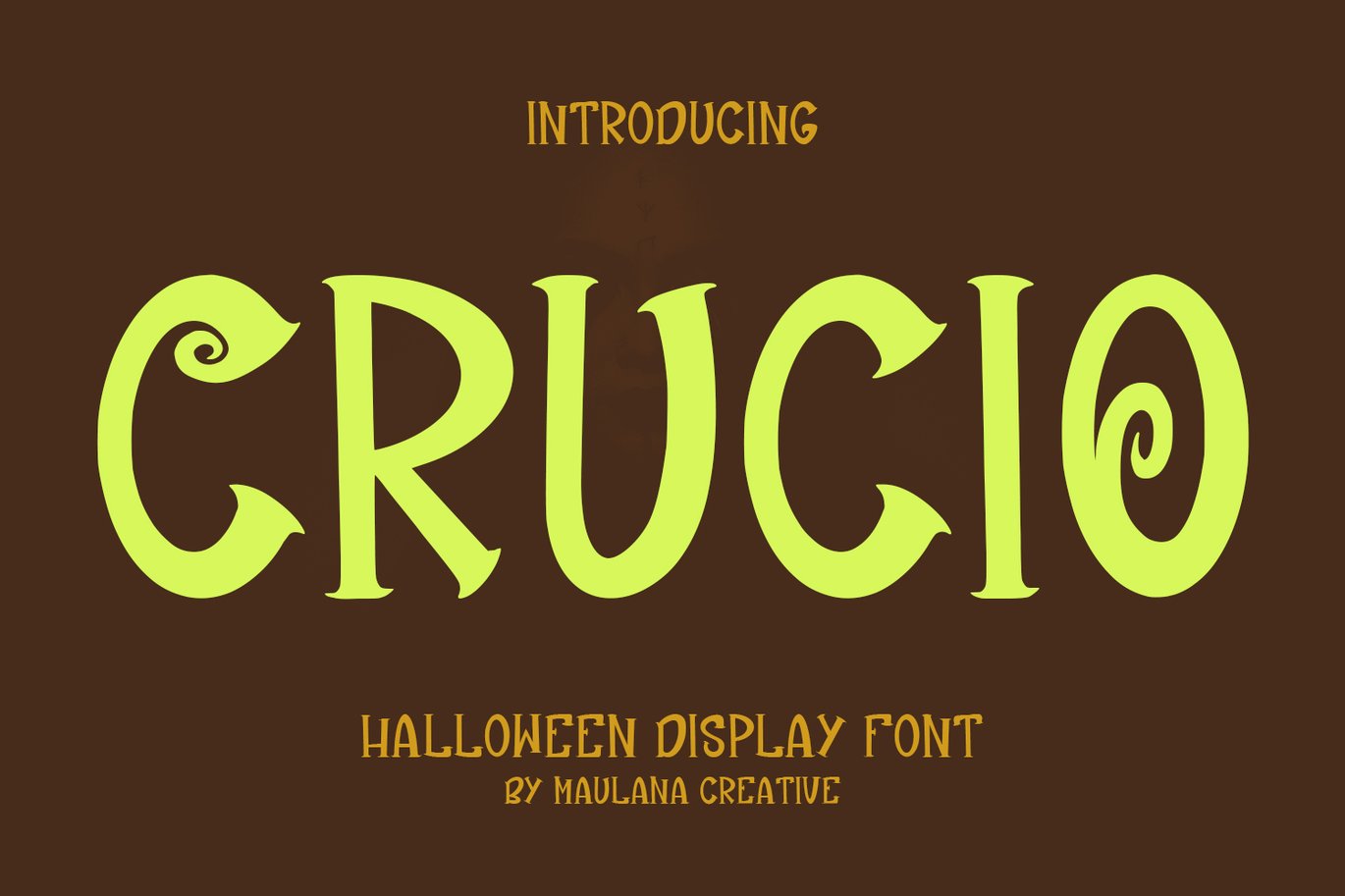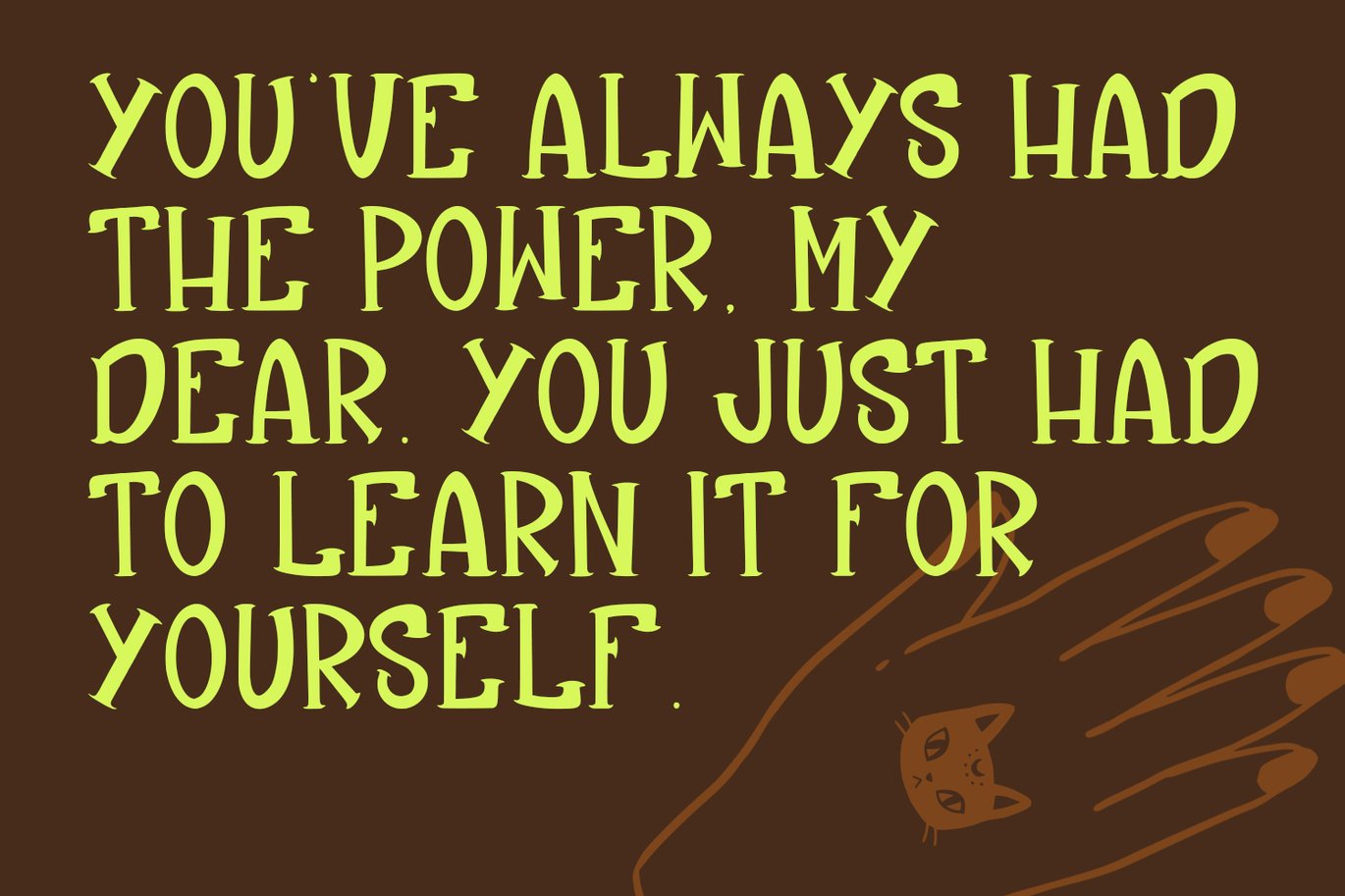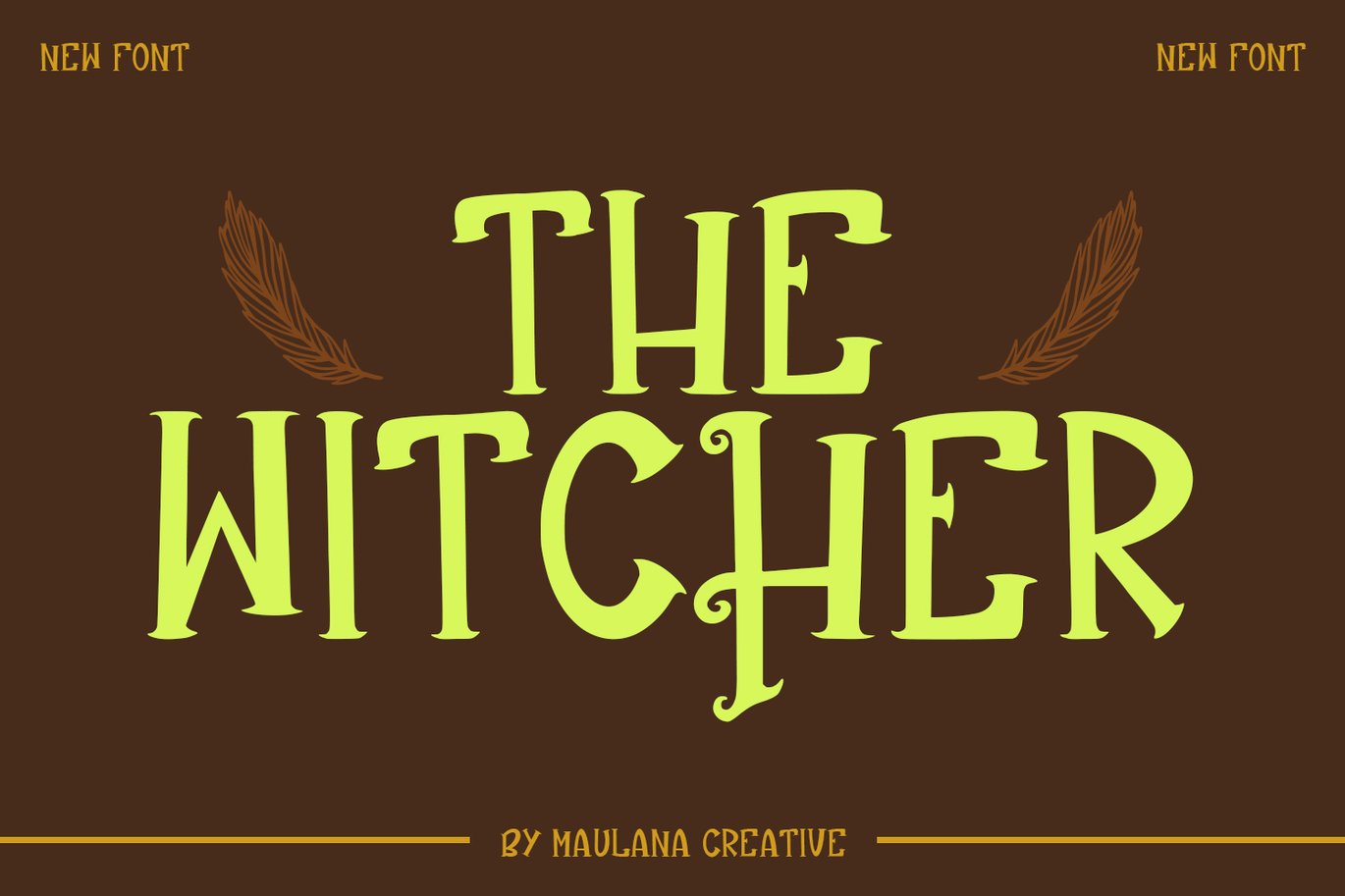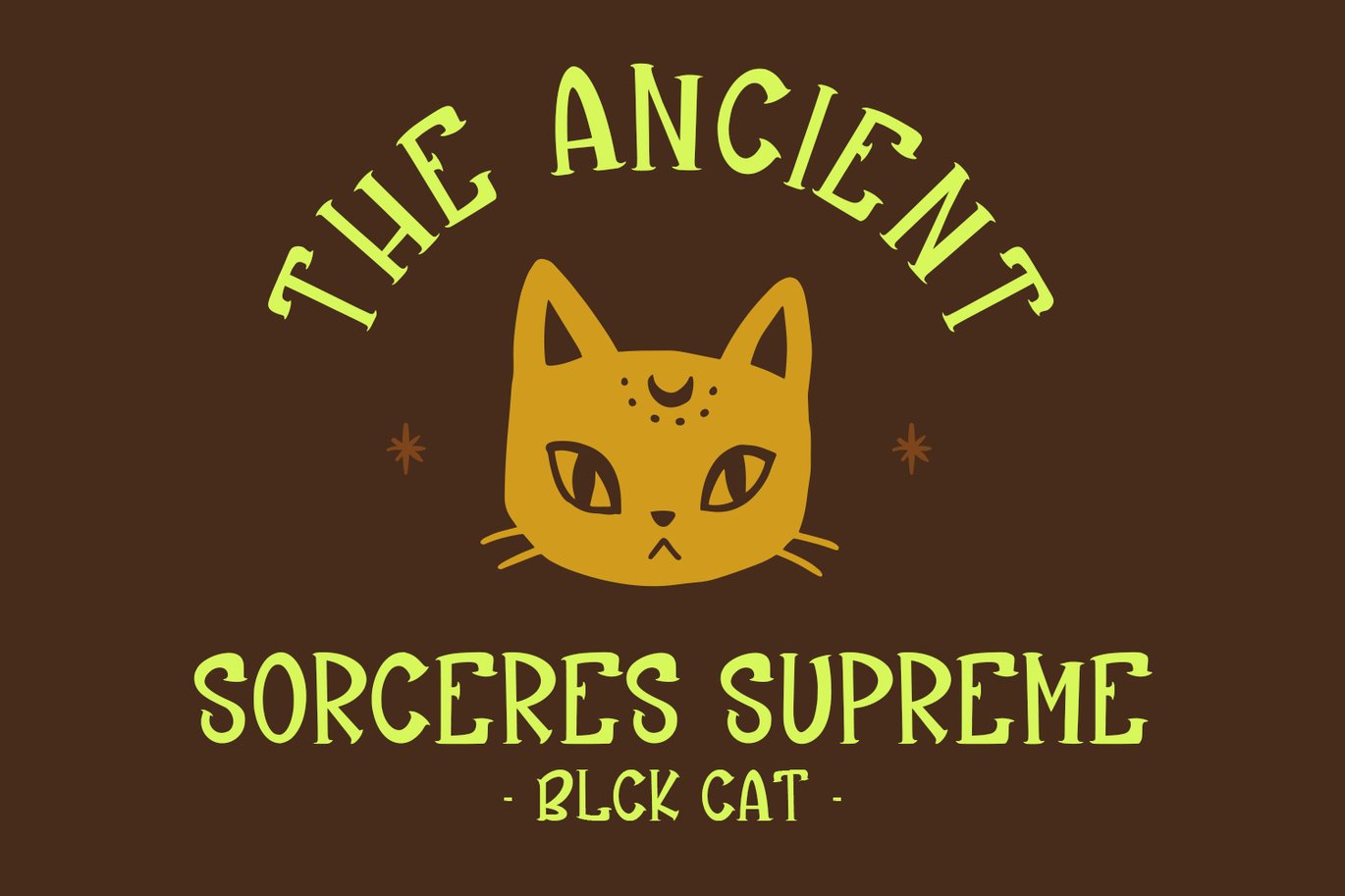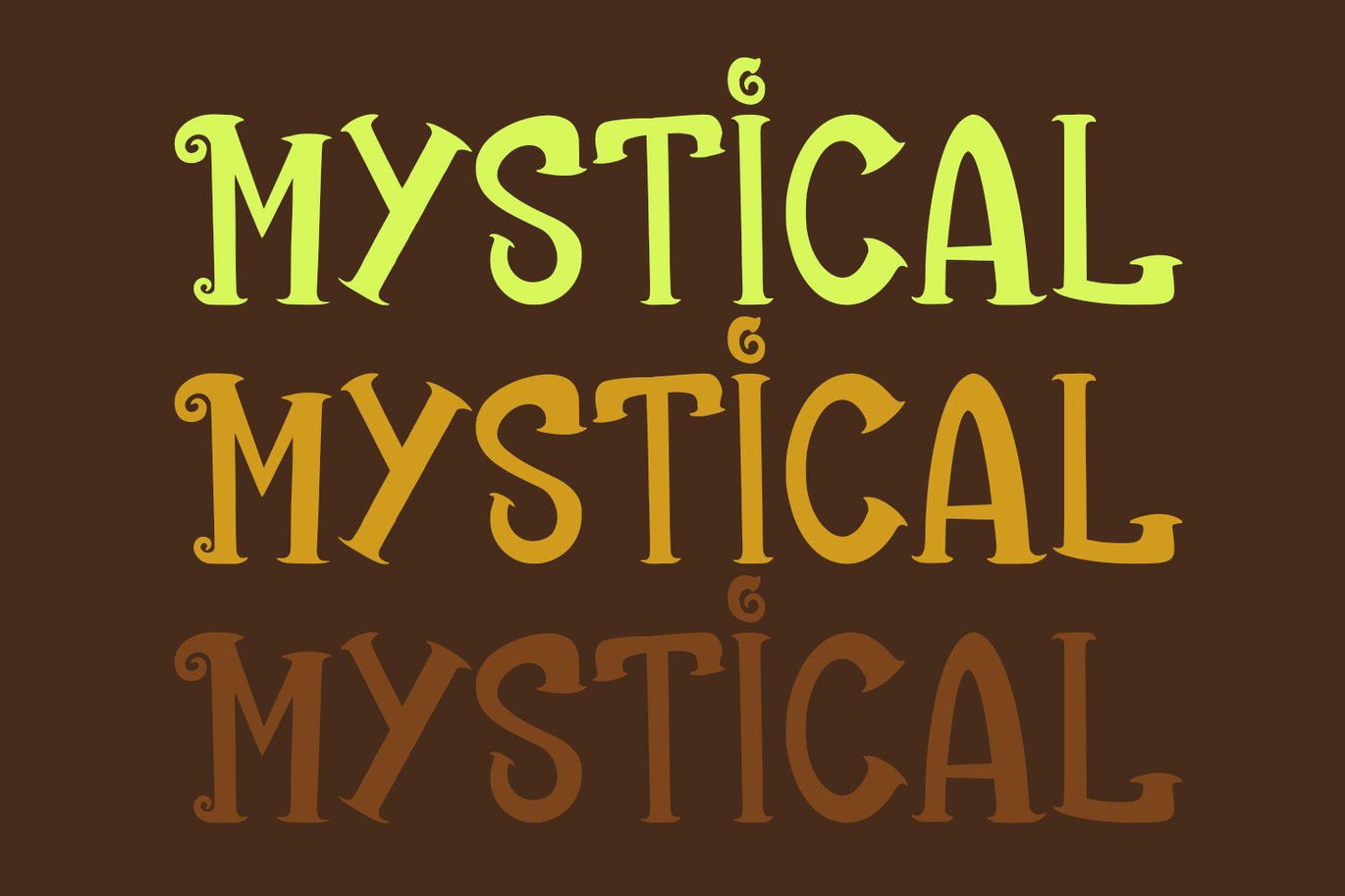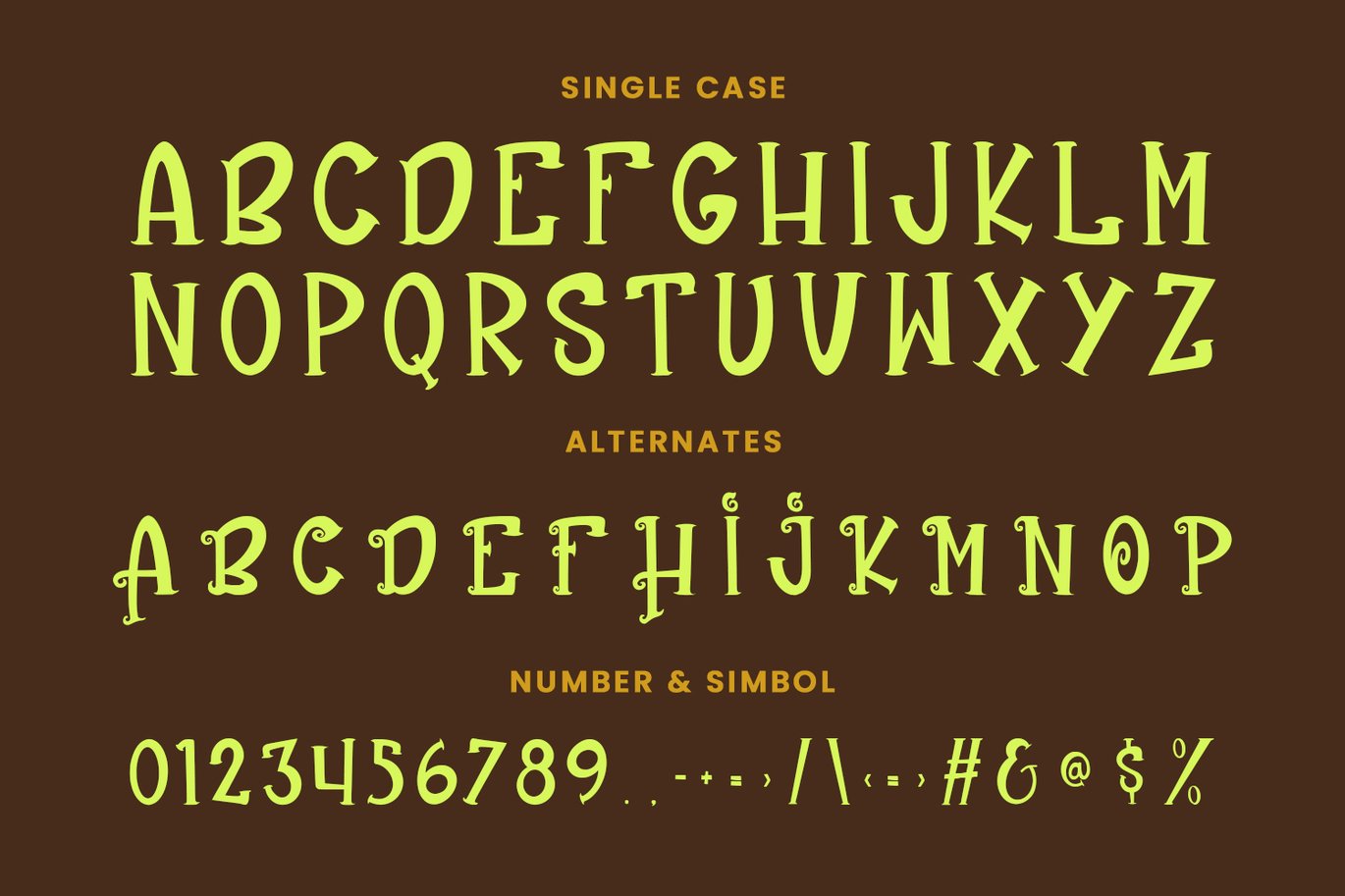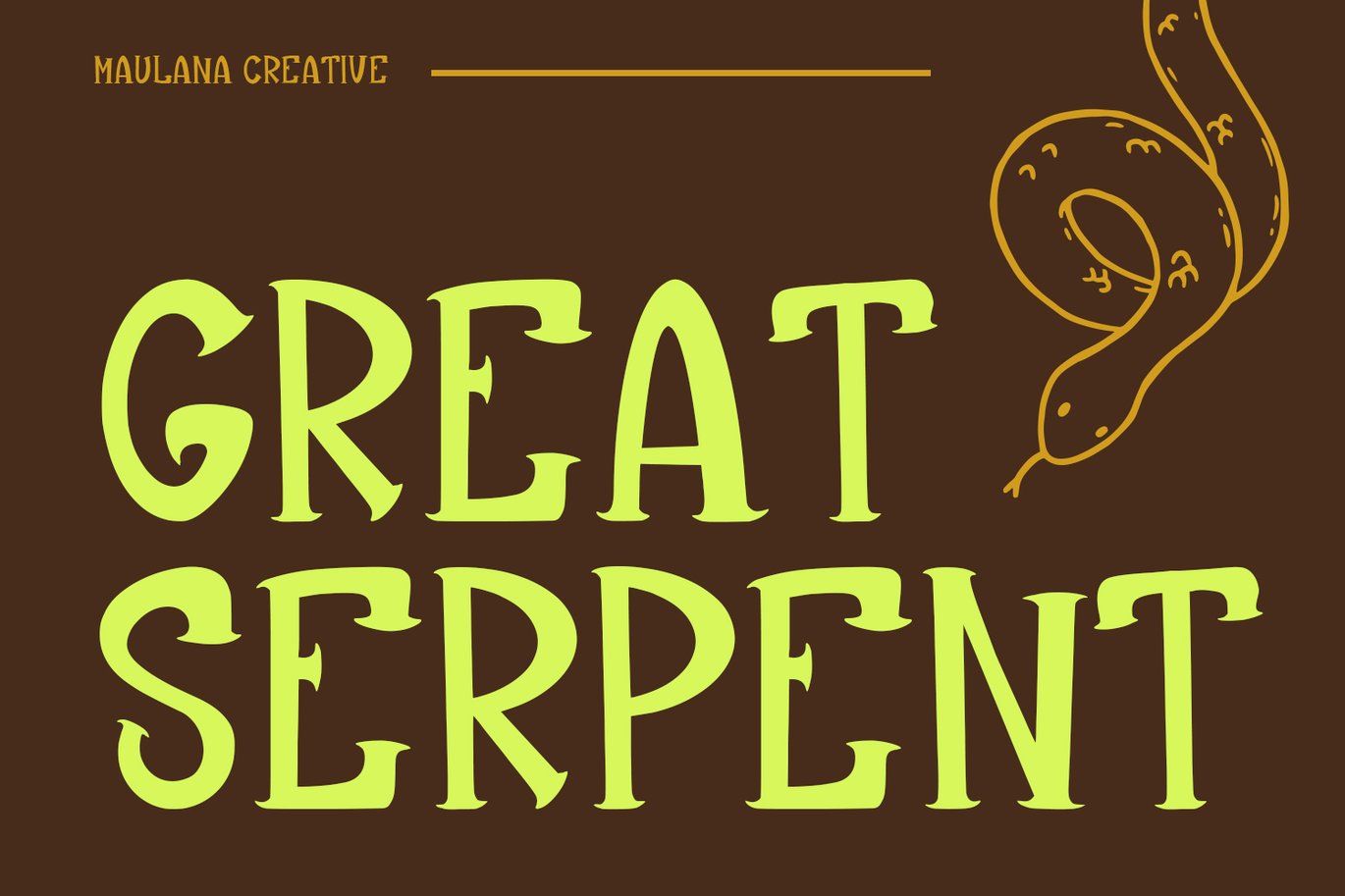
Crucio Display Font
Crucio display font. Bold stroke, fun character with a bit of ligatures and alternates. To give you an extra creative work. Crucio font support multilingual more than 100+ language. This font is good for logo design, Social media, Movie Titles, Books Titles, a short text even a long text letter and good for your secondary text font with script or serif. Make a stunning work with Crucio display font.